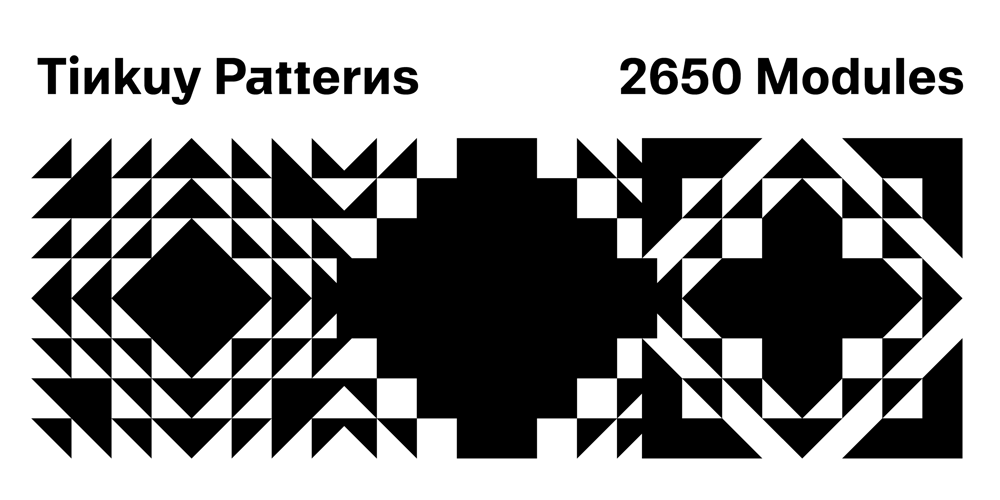
Tinkuy Patterns Font Family was designed by Alejandro Paul, Vanessa Zúñiga and published by Sudtipos. Tinkuy Patterns contains 6 styles and family package options. Meaning of Tinkuy.Tinkuy is a Quechua word that means a meeting of opposing forces that complement each other. A meeting of opposites and differences. A meeting point where different thoughts, interests, feelings and aspirations confront and converge, providing the resurgence of new ways of thinking and that are embodied in confrontational actions, in mobilizations that seek change.Tinkuy patterns is born from the analysis of different archaeological pieces of native cultures of the Andes, where the visual signs that are recorded on them are related to the concept of encounter. It is part of the research project Crónicas Visuales del Abya Yala by designer Vanessa A. Zúñiga Tinizaray. —The Tinkuy Patterns.The Tinkuy Patterns system is divided into six files containing a total of more than 2650 modules that can be combined together creating an infinite range of possibilities. The digitization of the typeface family has been carried out by Ale Paul, through the Sudtipos foundry.An infinite number of possible combinations can be accessed by using the letters on the keyboard. Although a certain shape predominates in each set, they can be combined with each other.